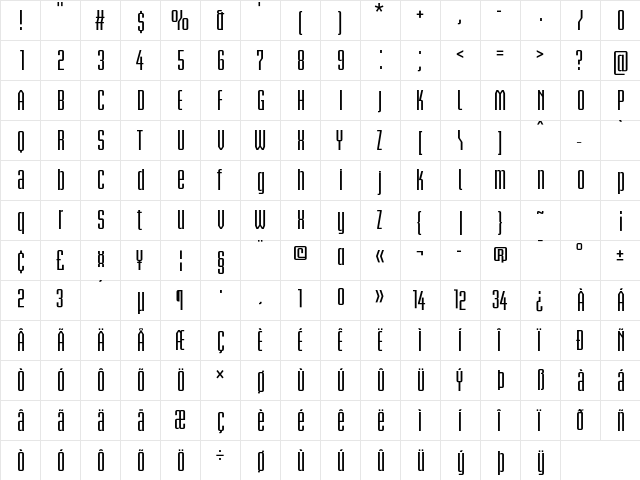
Briem Akademi Std Semibold Condensed
| Designer | Gunnlaugur SE Briem |
Design Context for Briem Akademi Std Typeface
Briem Akademi Std is a composed and adaptable typeface that performs quietly and consistently across a wide range of design contexts. Its bold stroke weight gives it real presence on the page. Its narrow stance lets it pack a punch even in space-constrained designs.